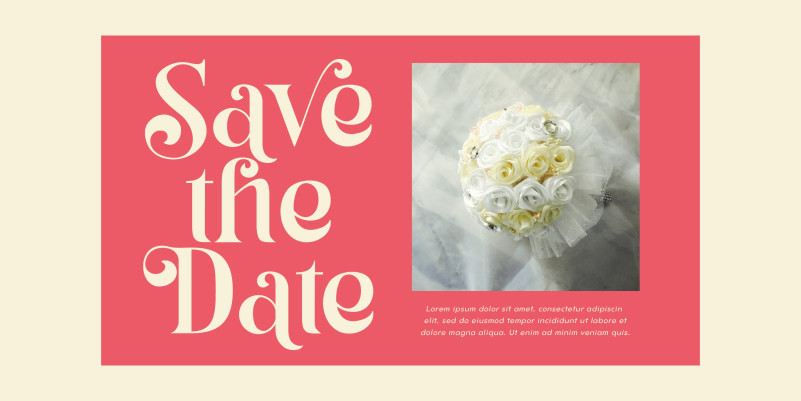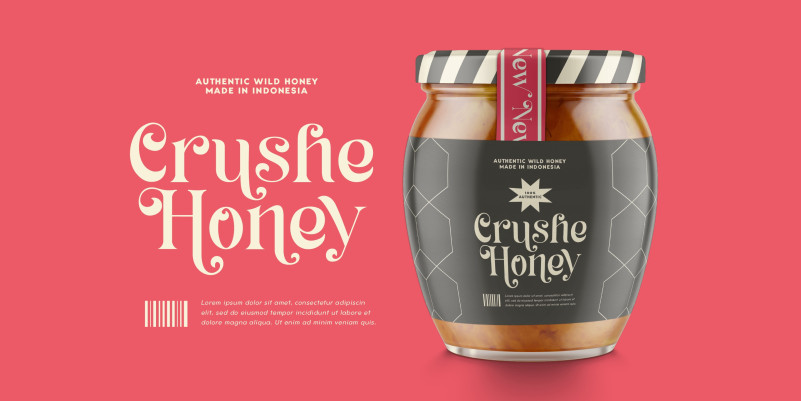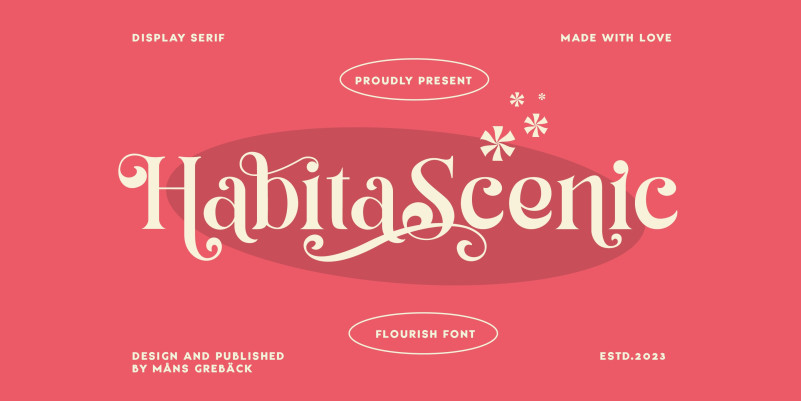
Habita Scenic Font
Habita Scenic Font, is a stylish and beautiful serif font that’s perfect for adding a touch of sophistication to any project. With its elegant and refined appearance, this font exudes class and style, while its clean lines and subtle curves create a sense of balance and harmony. Get ready to elevate your designs with this stunning font!
Use underscore _ anywhere to make a swash.
Example: Love_Passion